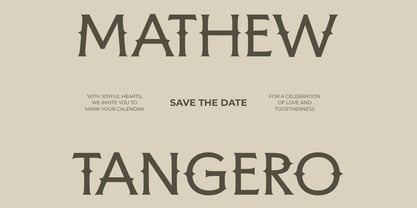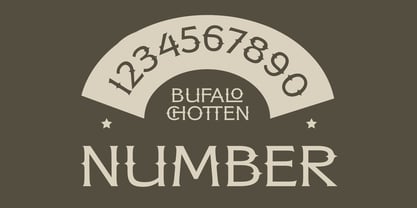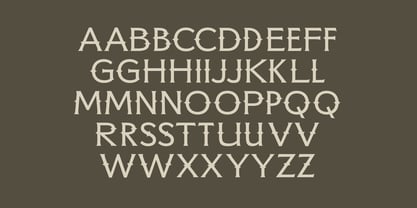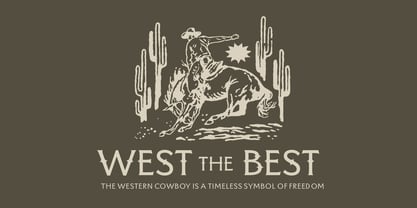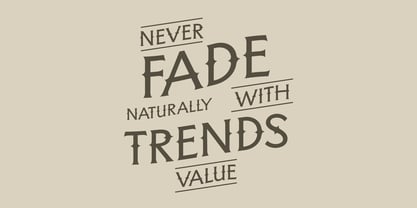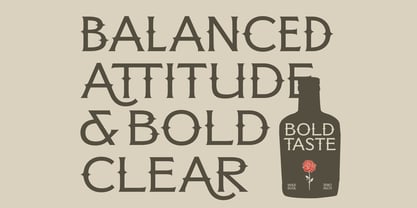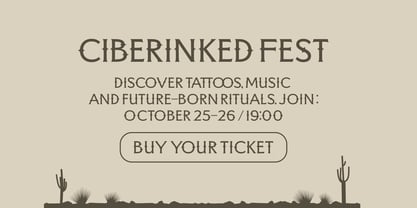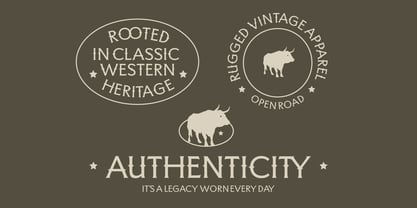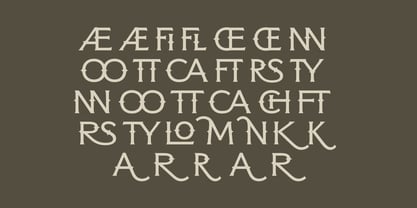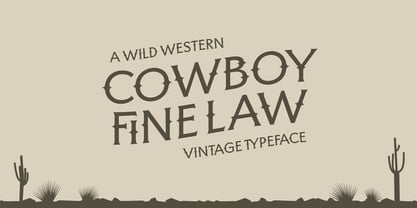
Bufalo Chotten
by Timelesstype Studio
The Bufalo Chotten Font Family was designed by Heru Utama Putra and published by Timelesstype Studio. Bufalo Chotten contains 2 styles and family package options. More about this family
Bufalo Giotten is a bold western vintage display font crafted with rugged charm and strong Frontier-era character. Featuring sharp angular serifs, carved letterforms, and a striking silhouette style, it brings an authentic Wild West aesthetic ideal for logos, whiskey labels, rodeo posters, outdoor branding, rustic packaging, apparel prints, signage, and themed merchandise. With 16 ligatures and 9 alternates, Bufalo Giotten offers creative flexibility while maintaining a commanding presence that instantly elevates any western, adventure, or heritage-driven design.